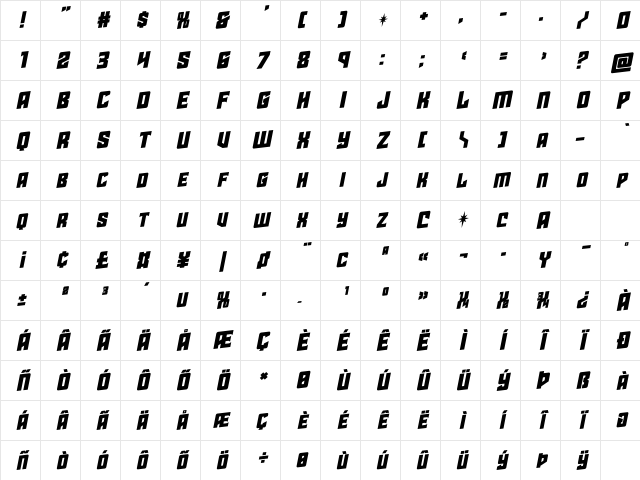
Star Guard Rotalic Italic Free Font
Star Guard Rotalic Italic
Complete Star Guard Rotalic Italic glyph index. Displaying only characters natively supported by Star Guard Rotalic Italic font.
Design Context for Star Guard Rotalic
Star Guard Rotalic is a composed and adaptable typeface that performs quietly and consistently across a wide range of design contexts. The slanted form adds forward momentum and visual energy.
Pro Tip: Use Star Guard Rotalic for emphasis, pull quotes, and subheadings where its slanted energy can add rhythm to the layout.